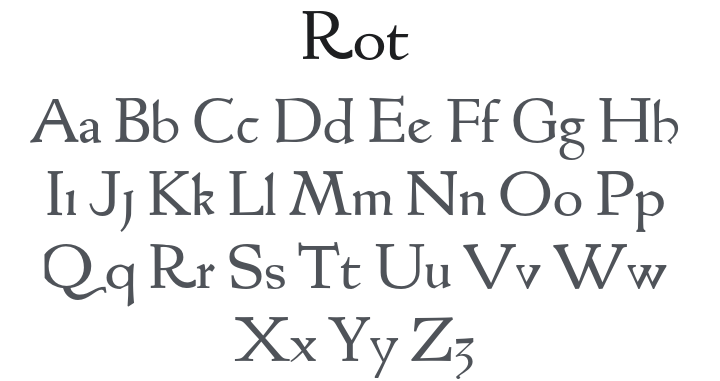
Rot Font
by ANRT
Rot Font
• Rot Proto-Roman 102R
About Rot
Rot 102R, Proto-Roman first used in Rome by Adam Rot for Dominicus de Sancto Geminiano’s Lecturae super secunda parte sexti Decretalium in 1471 and used until 1474. Type design workshop at HBK Saar and Bibliothèque municipale de Metz, Sarrebrücken, December 2016.